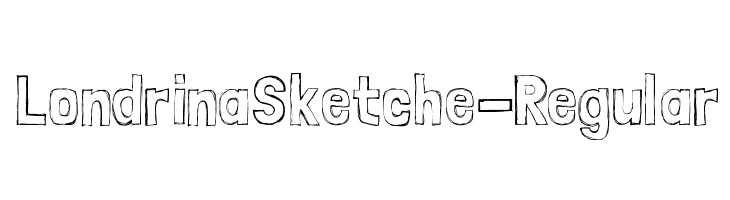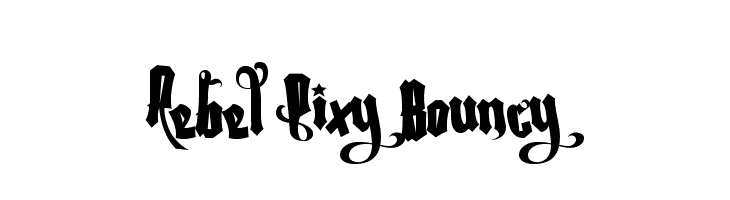
A bold, dynamic script font with brush-like strokes and high contrast.
A modern, italic font with geometric, angular design and consistent character height.
A distressed, grungy font with bold, textured characters perfect for edgy designs.
A playful, hand-drawn font with bold outlines and quirky shapes.
A playful, cut-out style font with bold, jagged edges.
A bold, distressed font with a grunge, hand-drawn aesthetic.
A bold, gothic blackletter font with ornate detailing and sharp angles.
A playful dingbat font with clover icons and dancing silhouettes.
A dot matrix style font with a digital, retro aesthetic.